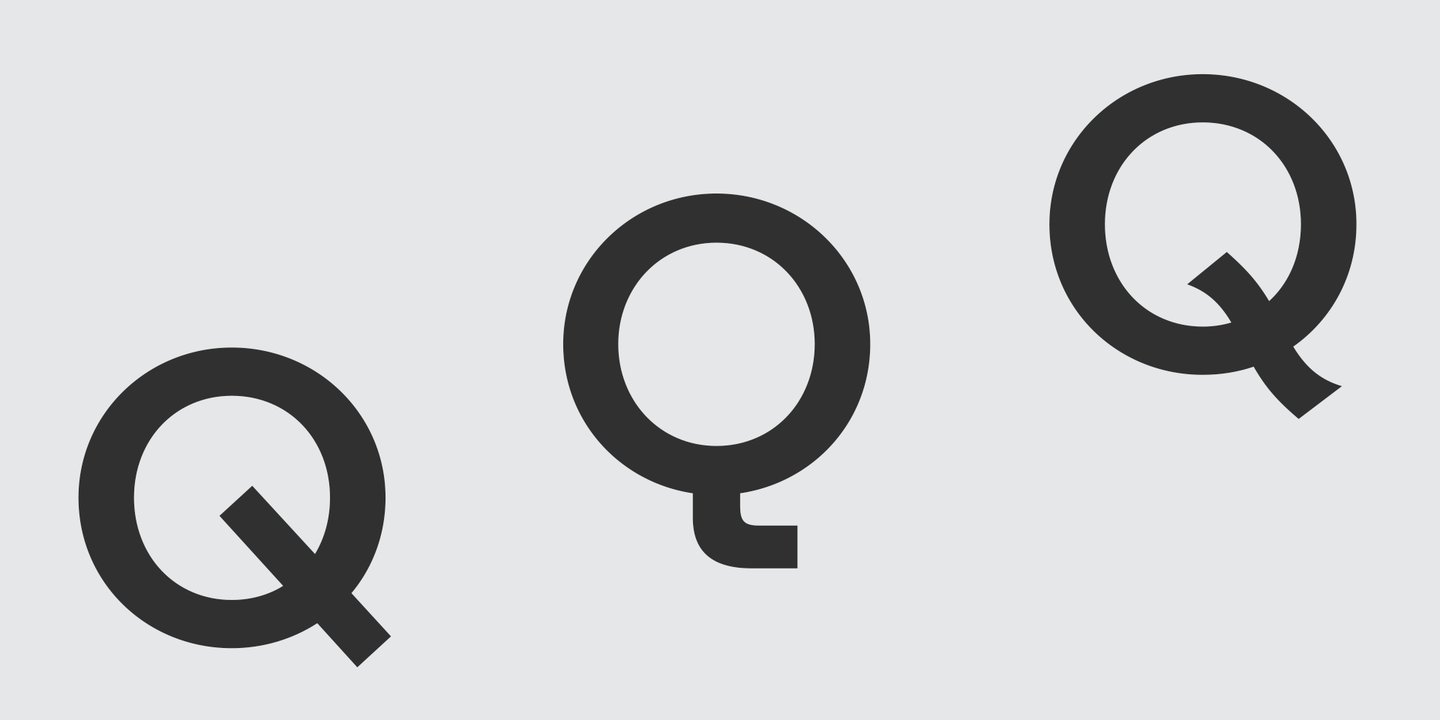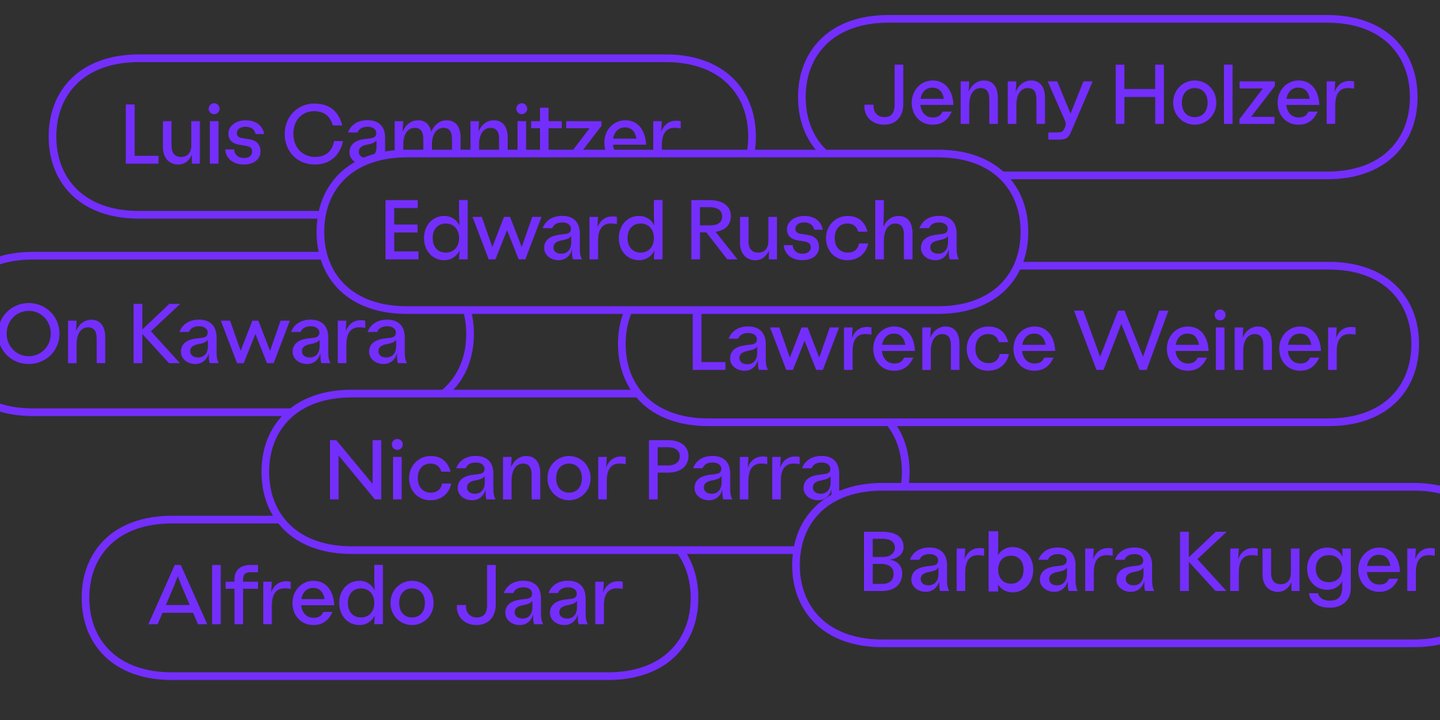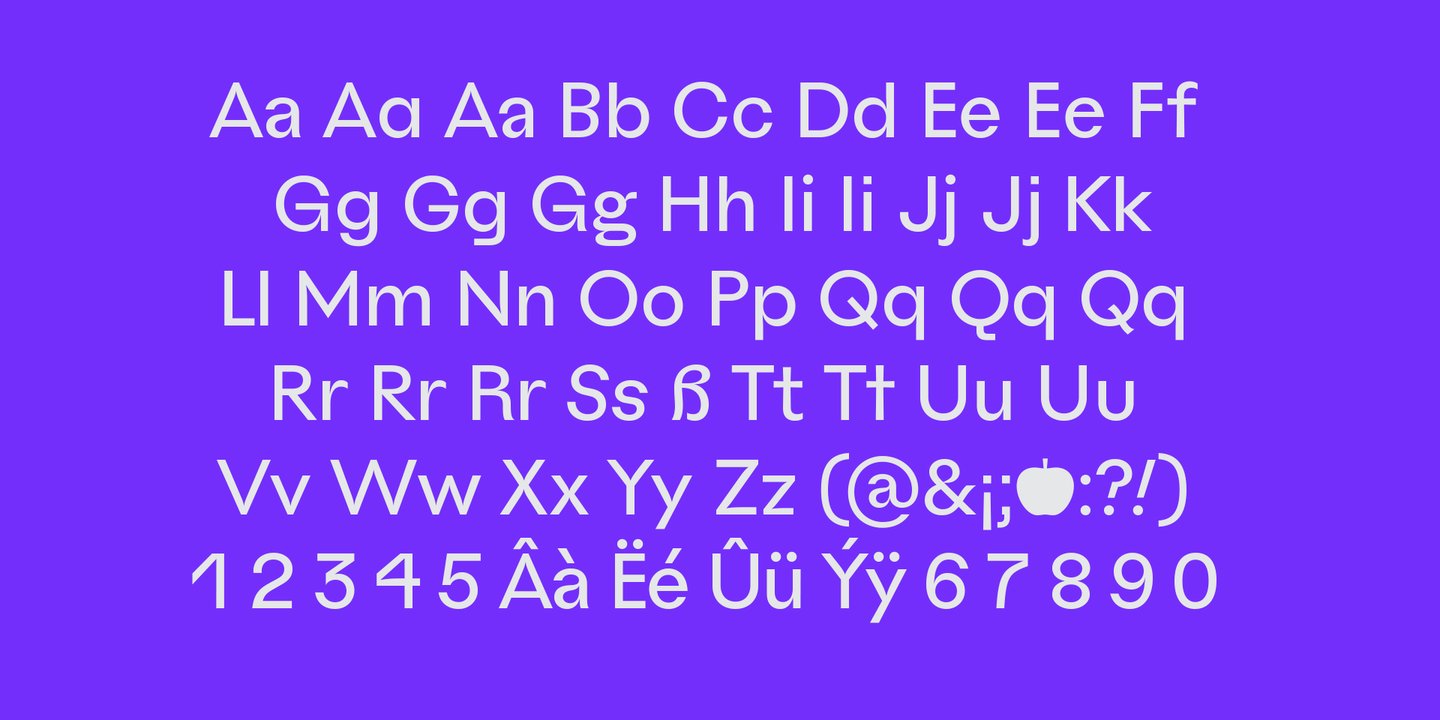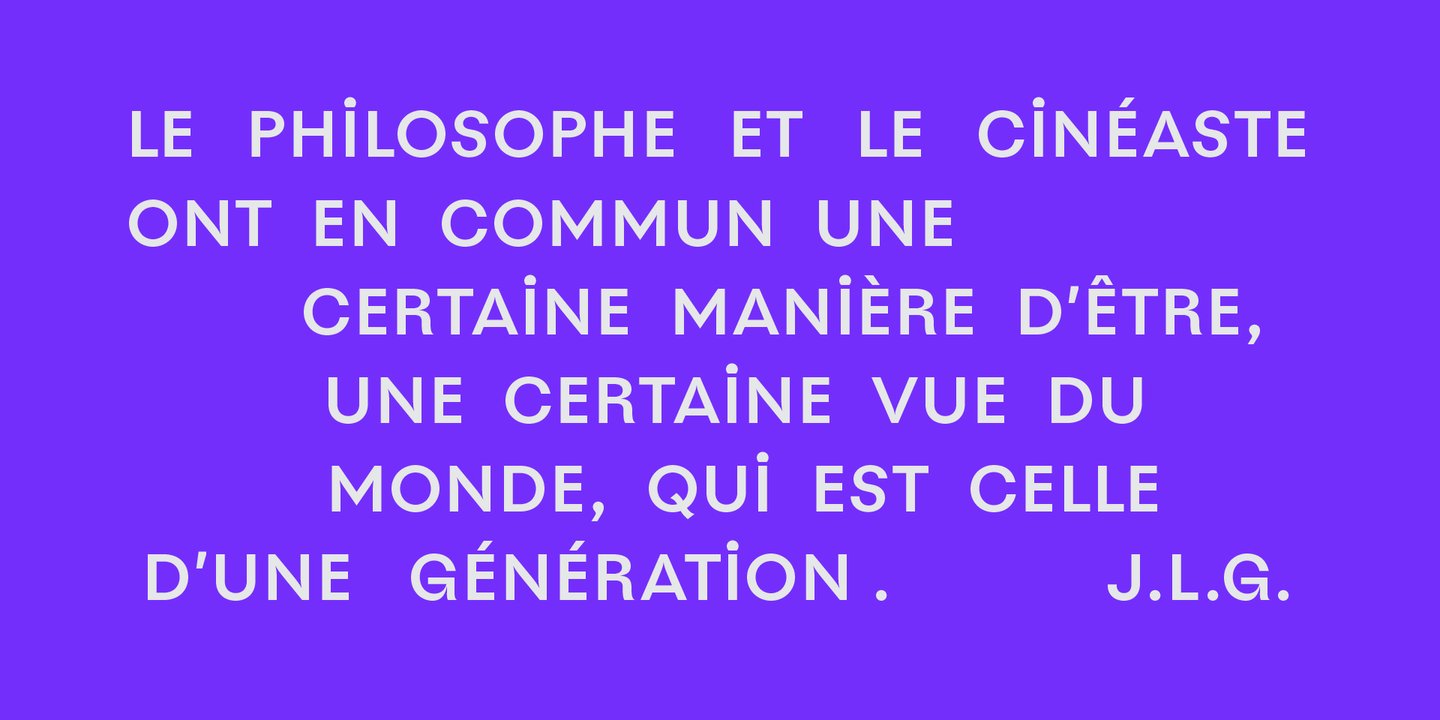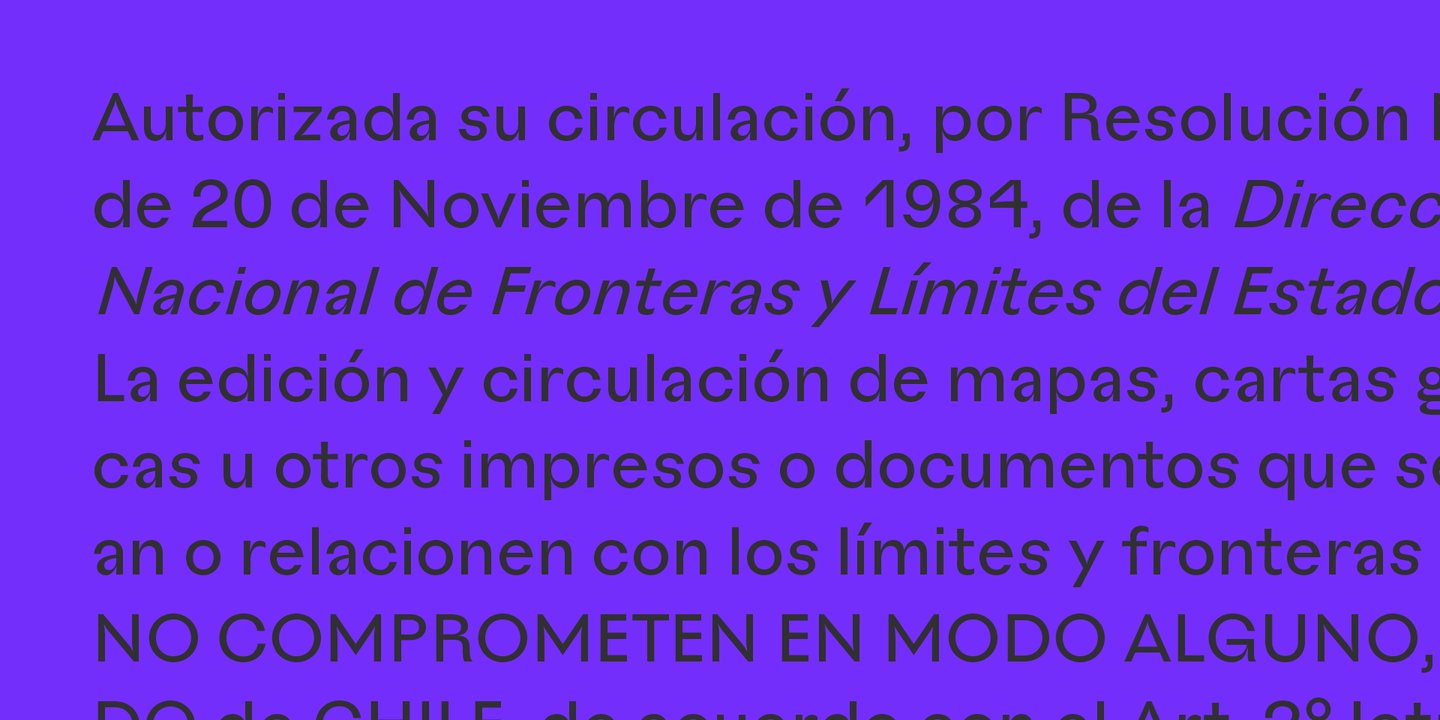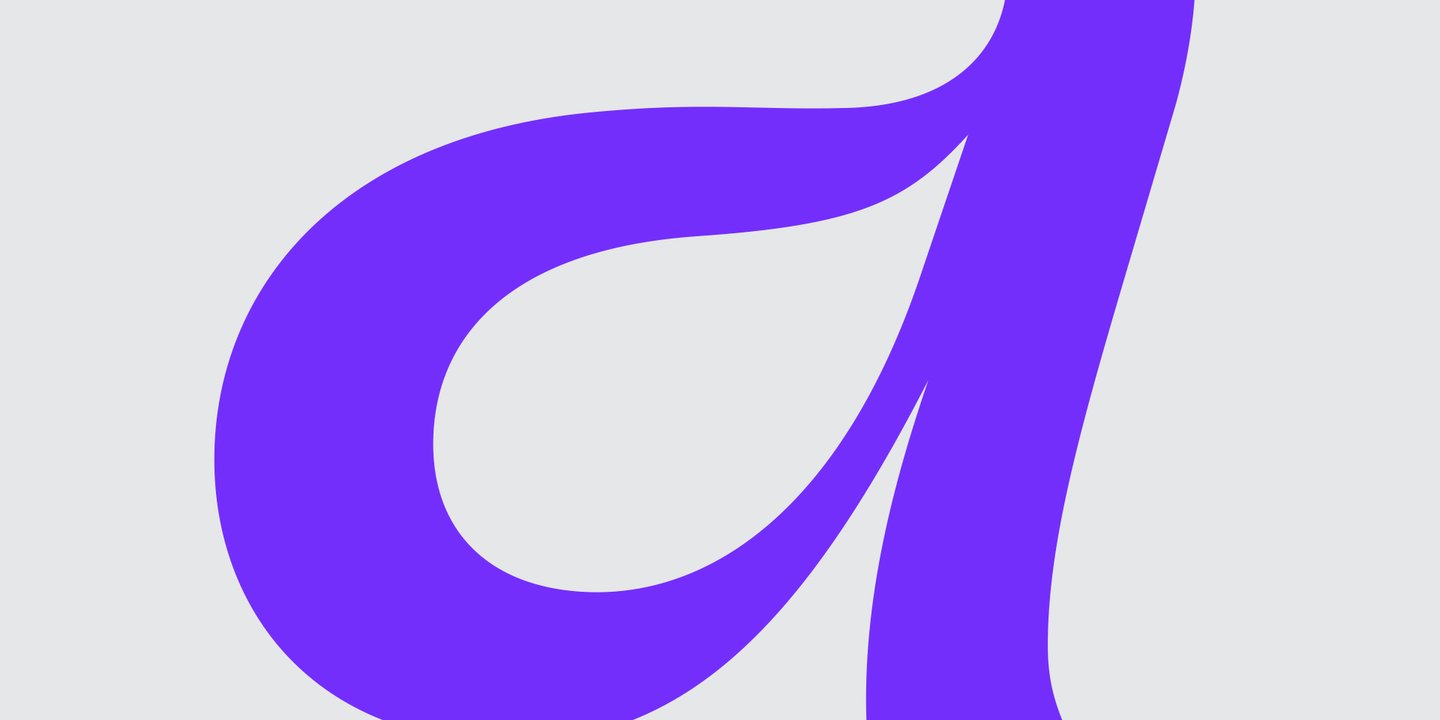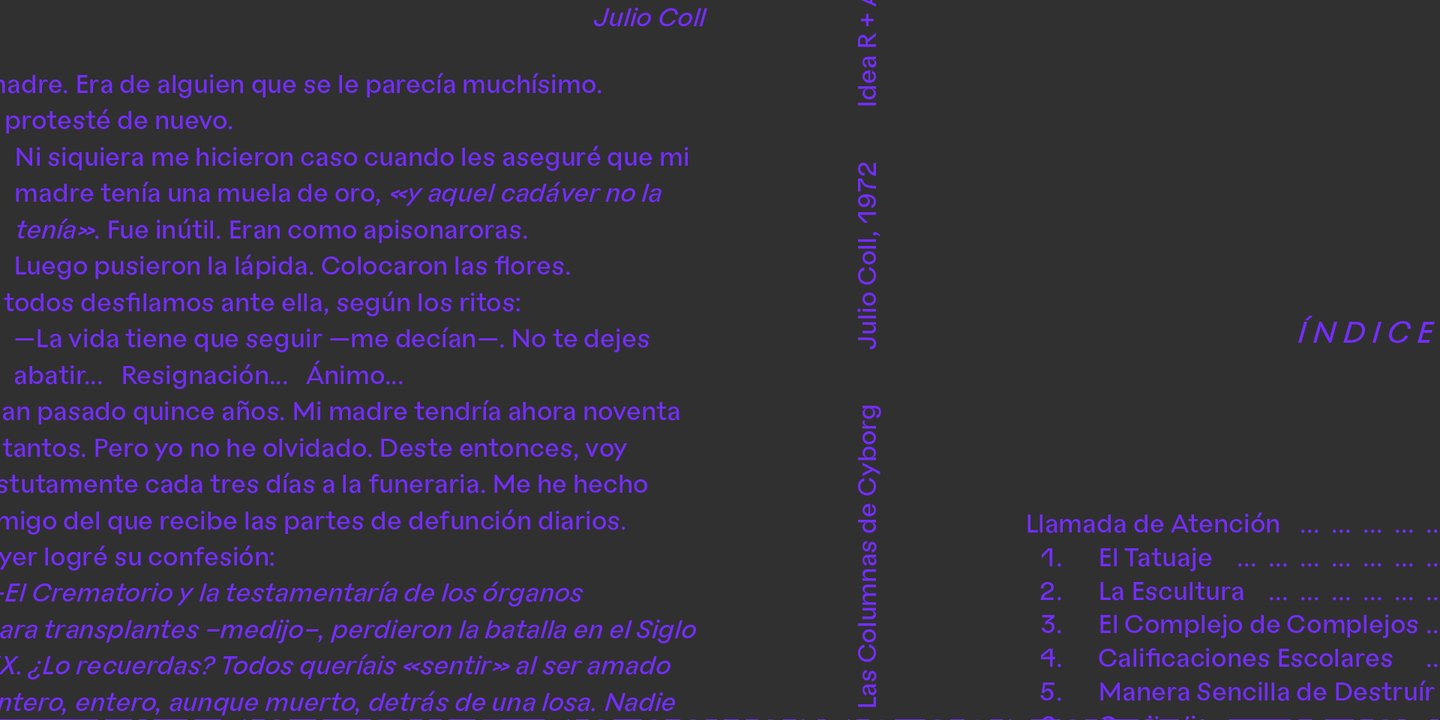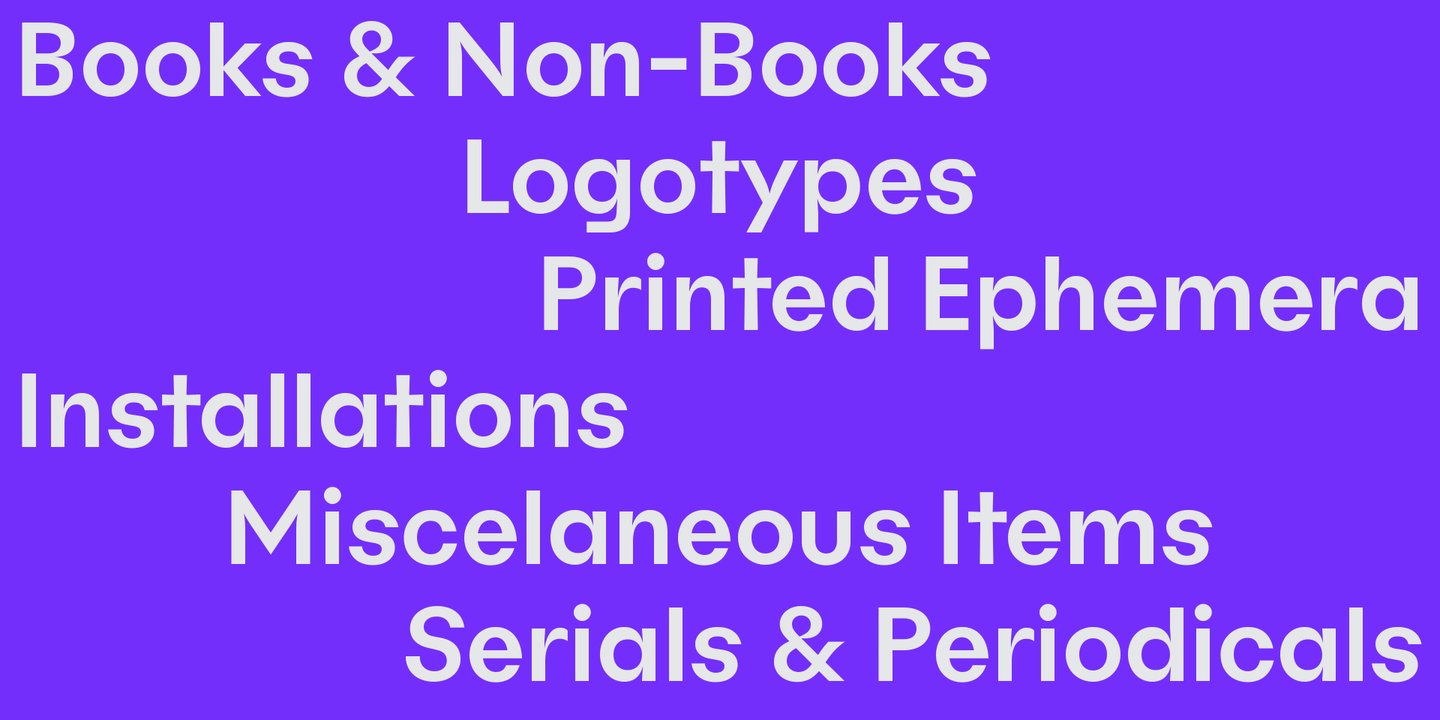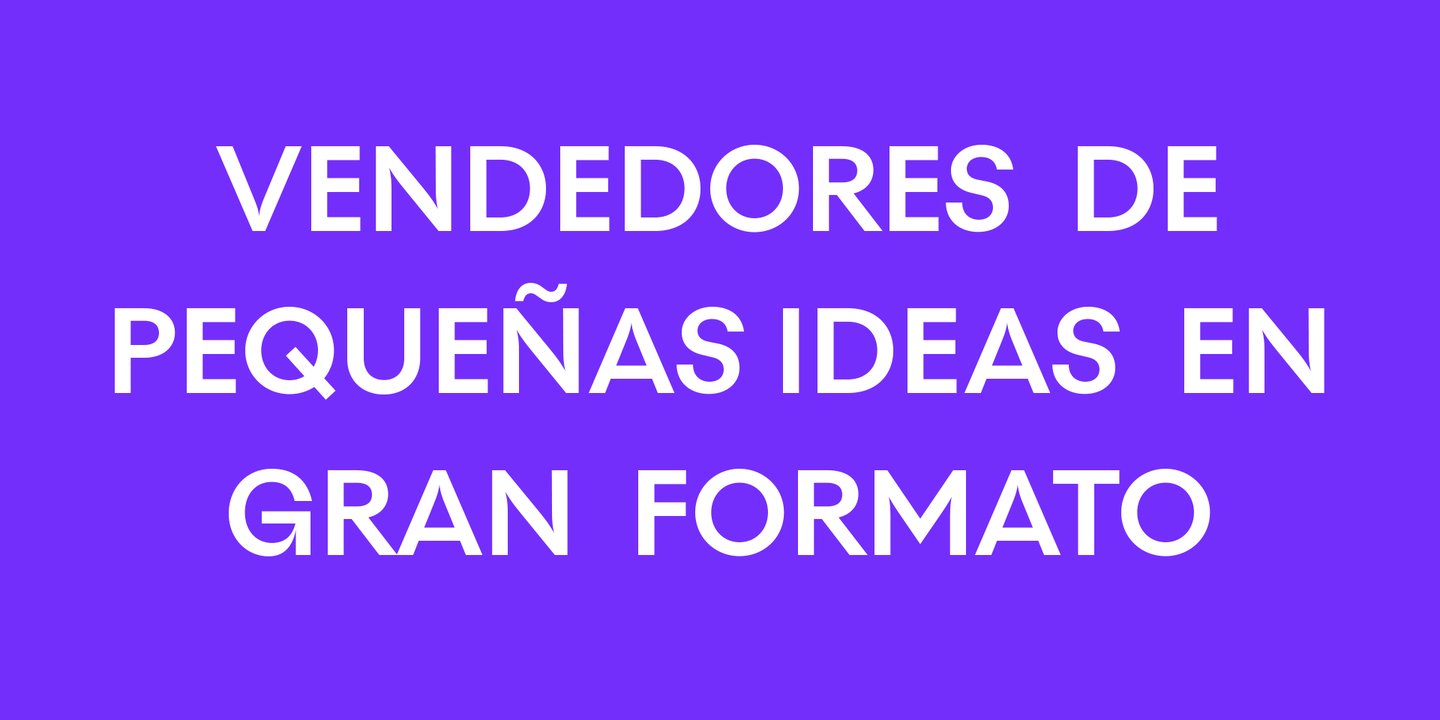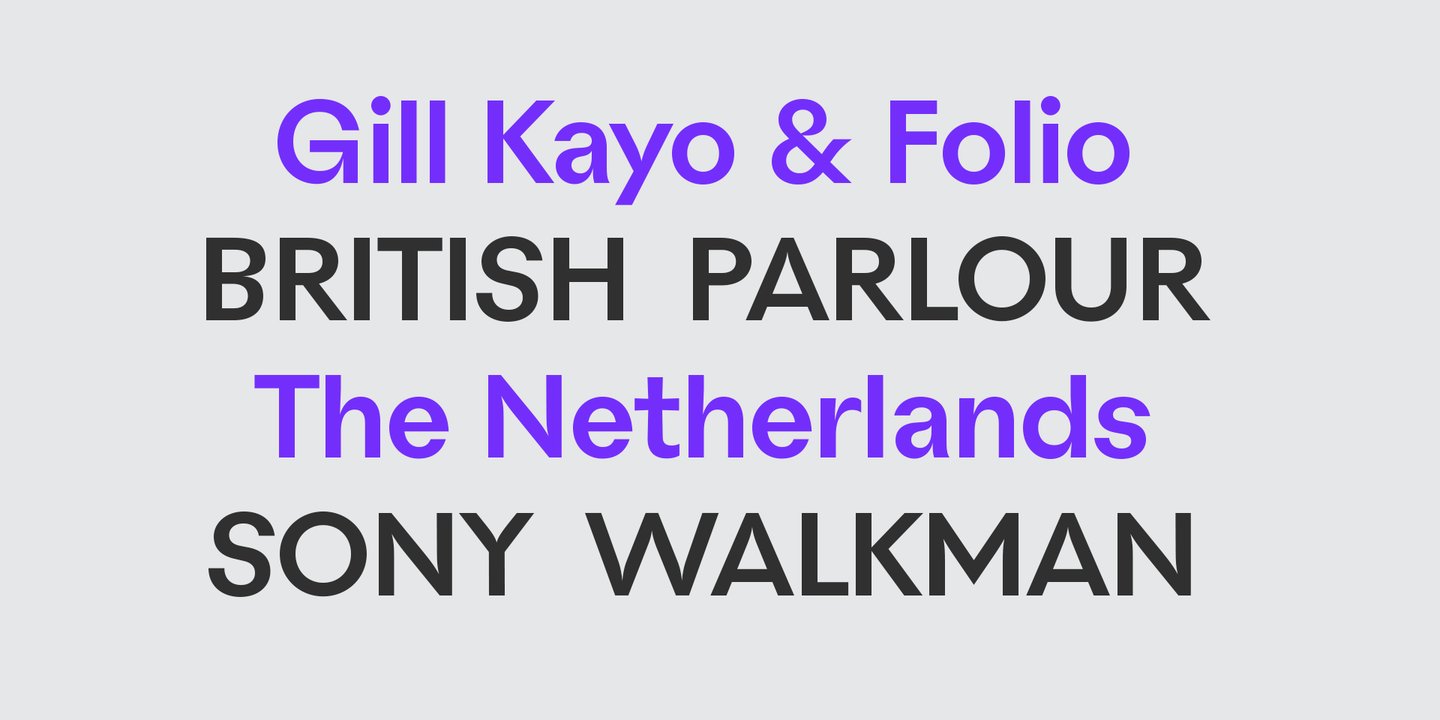
This new typeface by Hernández Montoya, derives from the most popular geometric sans serifs of the early 20th century; Futura and Johnston Underground.
Idea is influenced by sign makers, it's a look at the hand-painted versions of these models. With monolinear body and horizontal terminals, high x height and acute stresses in curves and tangents.
In elementary variants for everyday use: regular, italic, bold.
It comes by default with a neutral sans structure with two alternatives; Geometric (ss01) and grotesque (ss02).
A doted Capital I (ss03) and alternative square dots (ss04), take a view to the character set.